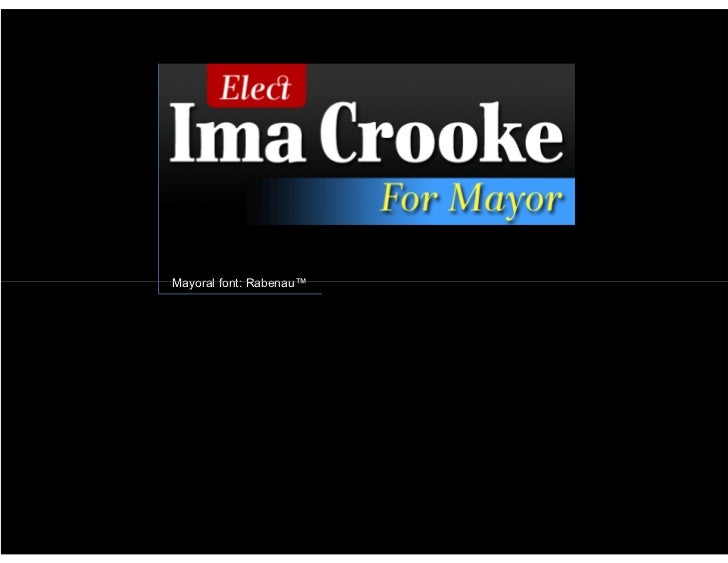
April 1, 2012 Study Reveals Fonts that Win Elections
Study Reveals Fonts That Win Elections ...
Study Reveals Fonts That Win Elections
WOBURN, Mass., April 1, 2012 – Monotype Imaging Inc. today announced the results of a 22-year study into font choices used by political campaigns throughout the United States (see original post at http://blog.fonts.com/?p=3755). Originally started by Monotype in 1990 in conjunction with the South Henrietta Institute of Technology, the exhaustive study analyzed the fonts used in more than 314,169 municipal and state elections, with the goal of identifying fonts and typographic trends in the winning political campaigns. “We were surprised not only by the wide choice of typographic styles used in campaigns across the country but also the clear advantage of certain fonts to help their candidates win elections,” said Idee Claire, director of political graphic studies at the South Henrietta Institute of Technology. “This study debunks the myth that it’s all about using red, white and blue colors – it’s far more important to match the right font to the candidate’s position they are seeking.” The study found these fonts resulted in a minimum 62.5 percent margin of victory when used in a campaign for the following offices as seen in this SlideShare: